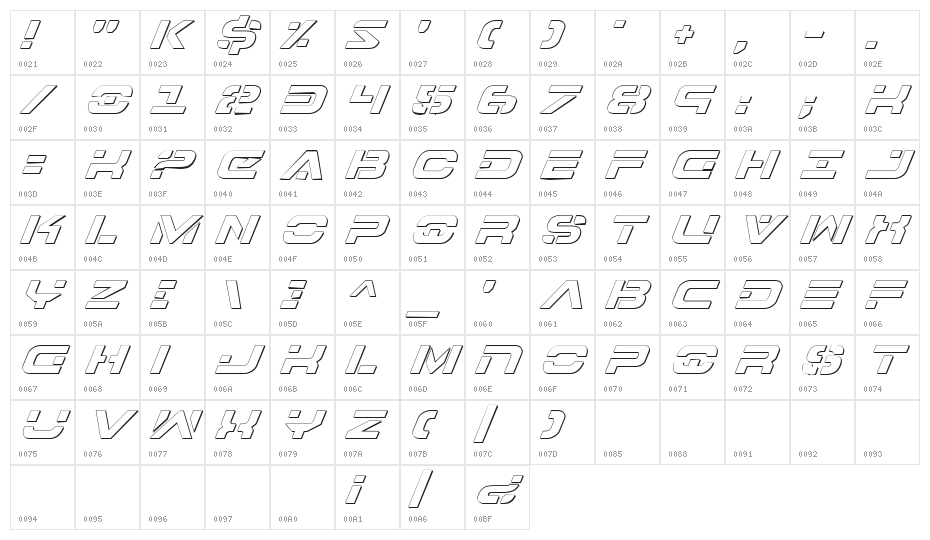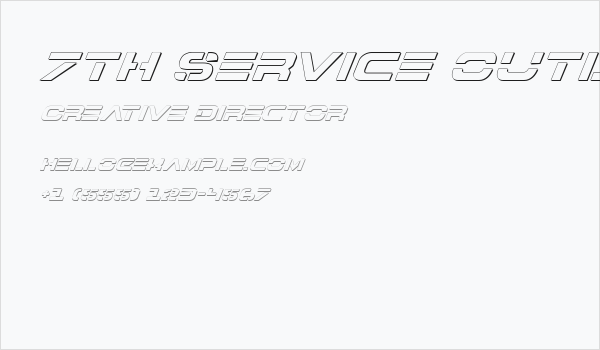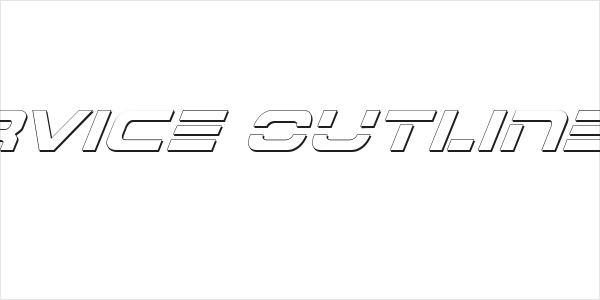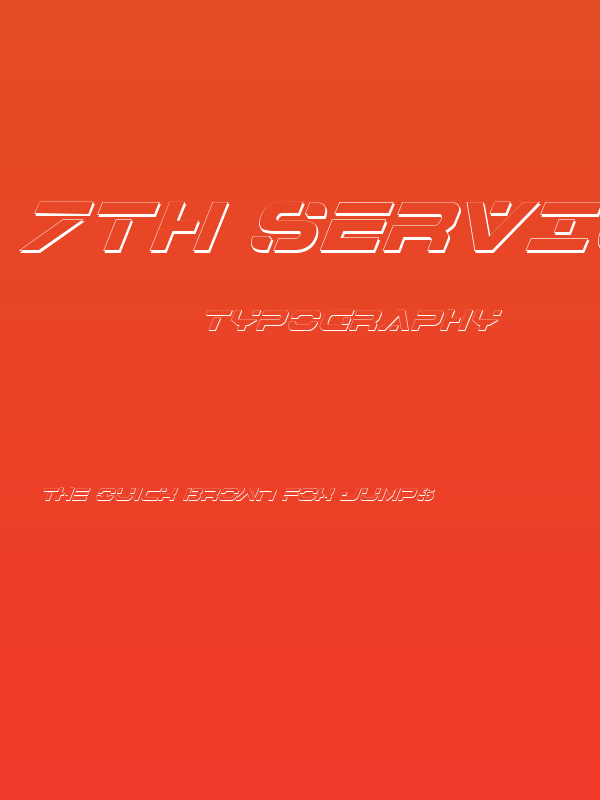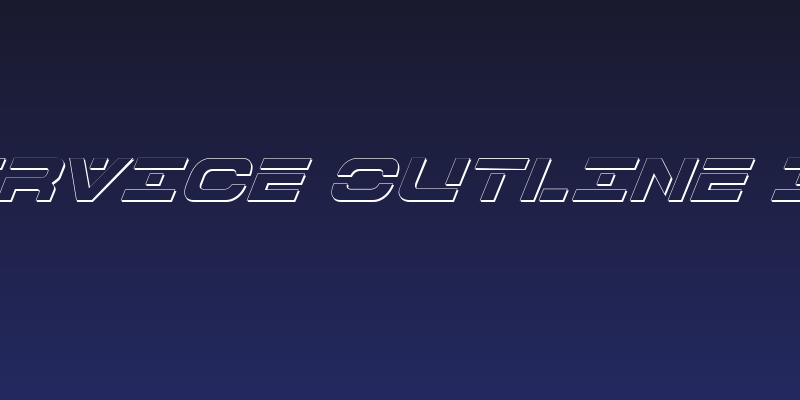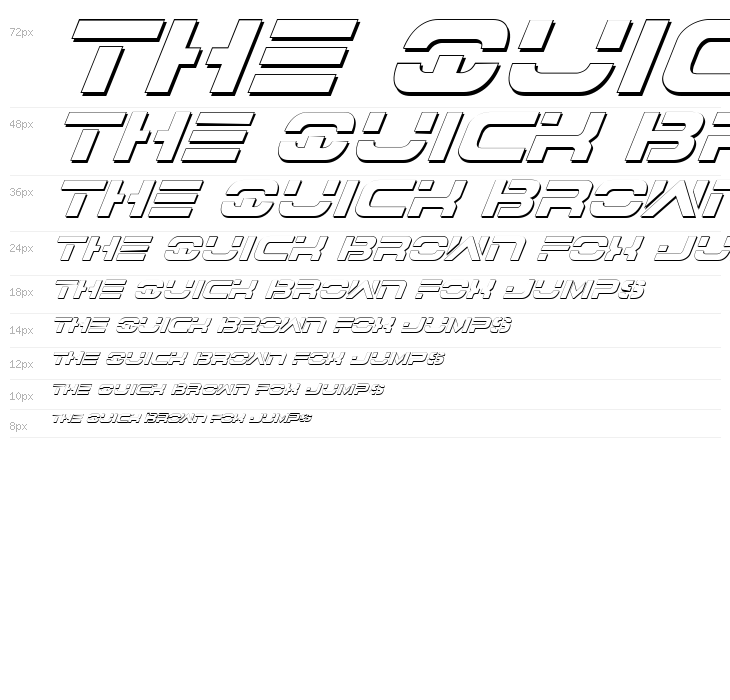
7th Service Outline Italic Font
7th Service Outline Italic Description
This font features a modern, futuristic design with an outlined style that gives it a sleek and technical appearance. The characters are italicized, adding a dynamic and forward-leaning aspect to the text. The uppercase and lowercase letters maintain a consistent geometric form, with sharp angles and clean lines. The numbers and special characters follow the same design principles, ensuring uniformity across all glyphs. The outline effect creates a sense of depth and dimension, making the font suitable for eye-catching designs. Its unique style is ideal for projects that require a contemporary and innovative look.
| Proposed Projects | Ideal for technology branding, sci-fi themed projects, video game titles, and modern advertising. |